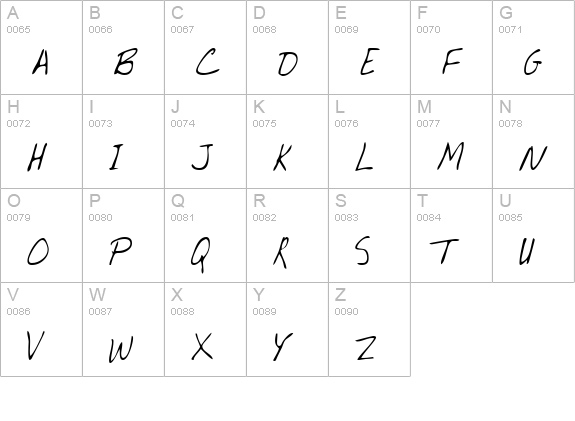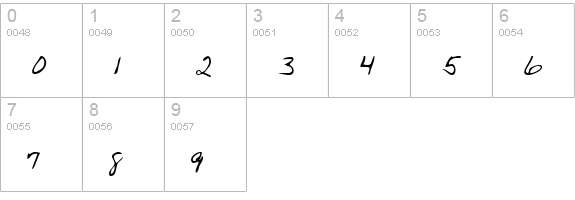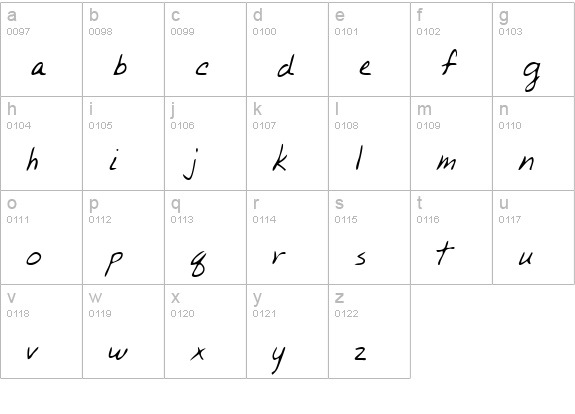
KarinsHand Regular Font Details
KarinsHand Regular is the standard, neutral variant in the KarinsHand typeface family \xE2\x80\x94 well suited to general body text, paragraphs, and standard typographic work.
KarinsHand Regular is a charming and versatile font that adds a touch of elegance to any design project. With its smooth and flowing lines, this font brings a sense of sophistication and playfulness to your text. Whether you're creating invitations, greeting cards, or logo designs, KarinsHand Regular is sure to make a lasting impression. This font features a unique handwritten style, giving your text a personal and authentic feel. Its gentle curves and delicate strokes create a sense of warmth and friendliness, making it perfect for conveying a welcoming message to your readers. With its generous spacing and legible characters, KarinsHand Regular ensures that your text is easy to read and understand. One of the best things about KarinsHand Regular is that it is freely available to download at FontsMarket.com. This means that you can enjoy the beauty and versatility of this font without any cost. It's a fantastic opportunity to elevate your designs without breaking the bank. Whether you're a professional designer or a DIY enthusiast, KarinsHand Regular is a must-have font in your collection. Its timeless elegance and effortless charm make it suitable for a wide range of projects, from wedding invitations to product packaging. So why wait? Experience the beauty of KarinsHand Regular today by downloading it for free at FontsMarket.com.